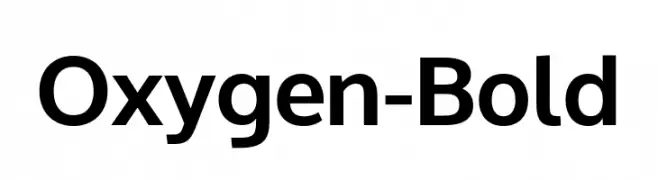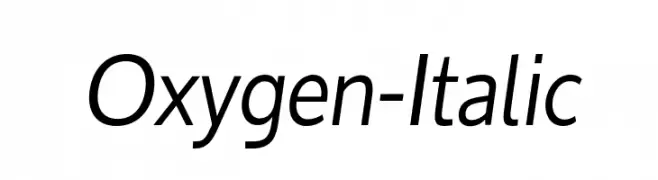
( Fonts by Vernon Adams )
A modern, italic sans-serif font with clean lines and a sleek appearance.
( Fonts by Vernon Adams )
A modern, rounded sans-serif font with a friendly and approachable style.
( Fonts by Vernon Adams )
A modern, tall, and narrow sans-serif font with clean lines and balanced spacing.
( Fonts by Vernon Adams )
A modern, condensed sans-serif font with uniform stroke width and high legibility.
( Fonts by Vernon Adams )
A bold, modern sans-serif font with clean lines and geometric structure.
( Fonts by Vernon Adams )
A modern, extra light sans-serif font with a tall, condensed style.
( Fonts by Vernon Adams )
A bold, modern font with a condensed and impactful design.
( Fonts by Vernon Adams )
A clean, modern monospaced font with uniform stroke thickness and geometric design.
( Fonts by Vernon Adams )
A bold, modern sans-serif font with excellent legibility and a clean design.